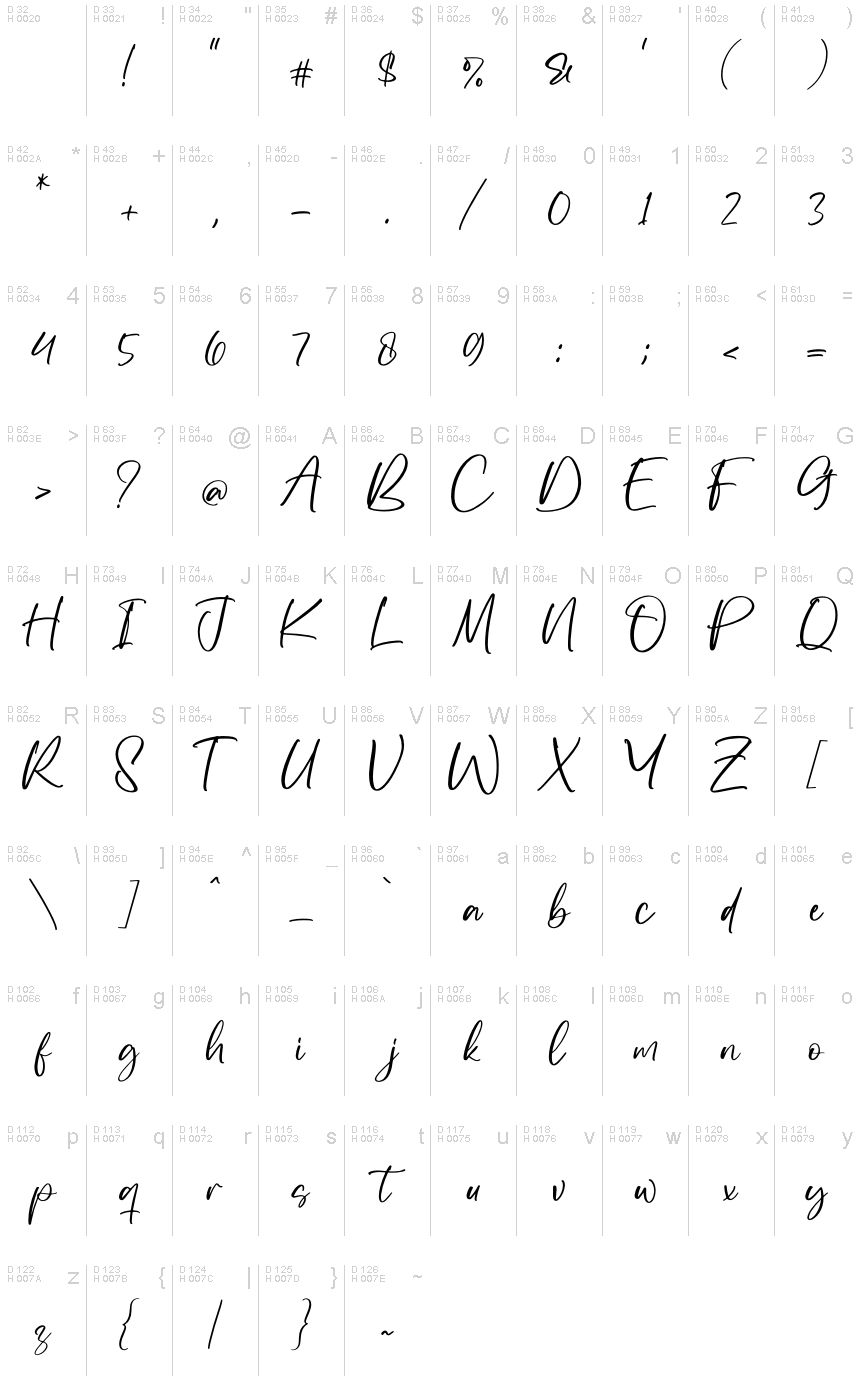
Zevallya
Zevallya emerges as a handwritten font that exudes an effortless elegance and a touch of personal charm. Crafted by Perspectype Studio from Letterena.com, its fluid strokes and varying thickness create a dynamic rhythm, reminiscent of exquisite calligraphy. The font's natural flow and delicate swashes suggest sophistication, making it ideal for designs seeking to convey intimacy and artistry.
Its aesthetic versatility shines in contexts that demand a bespoke feel, such as wedding invitations, branding materials for boutique businesses, or creative editorial layouts where a signature touch is desired. Zevallya's blend of casual grace and refined flair ensures that any message stands out with both warmth and style.